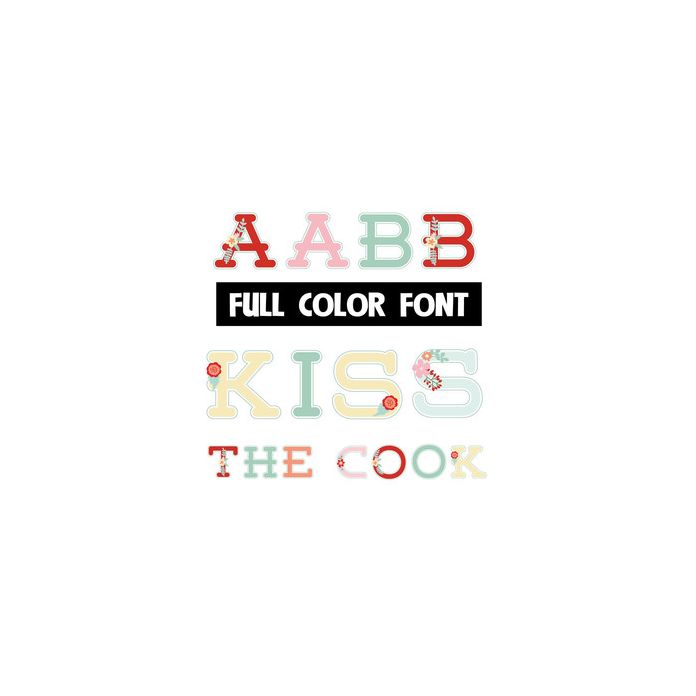
This full-color font features dainty florals throughout. While there is no true lowercase, both cases are different to help you with your creative looks. This font works best for titles, displays, posters and more. Please note color fonts will show as black in non compatible programs. This font type is compatible with Silhouette Studio.